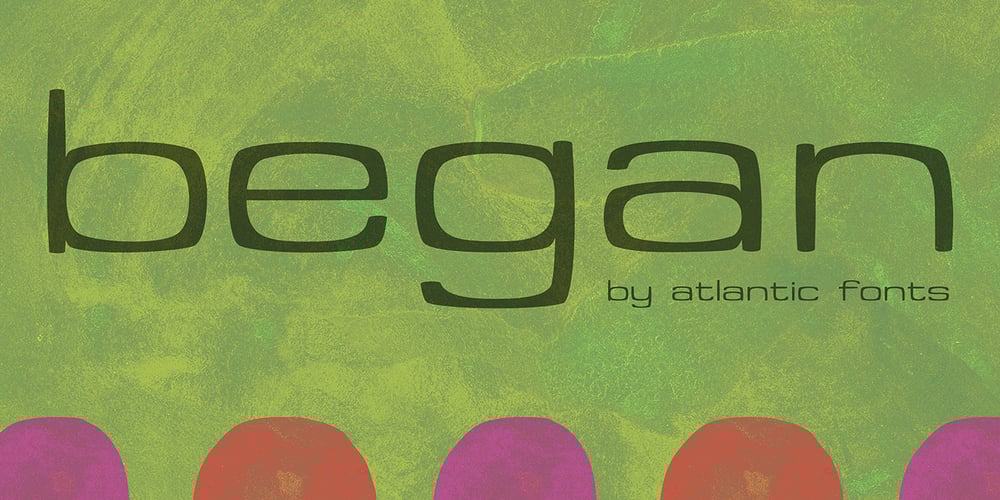
Began
Began font
Began Font Family was designed by Ken Russell and published by Atlantic Fonts. Began contains 1 styles and family package options. Began is square and round, athletic and unapologetic. It may be just what you are looking for.